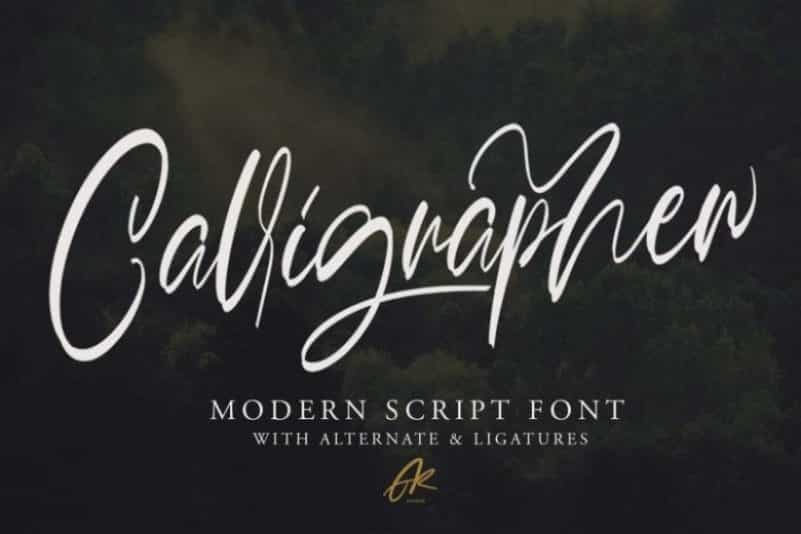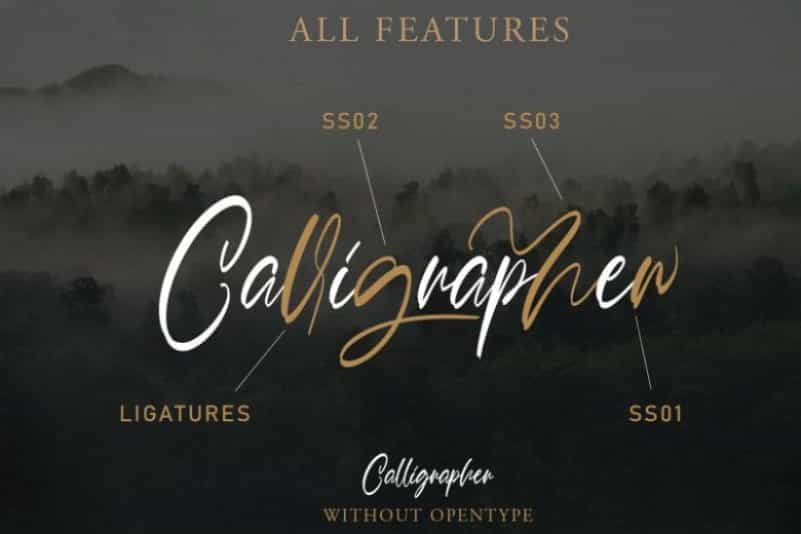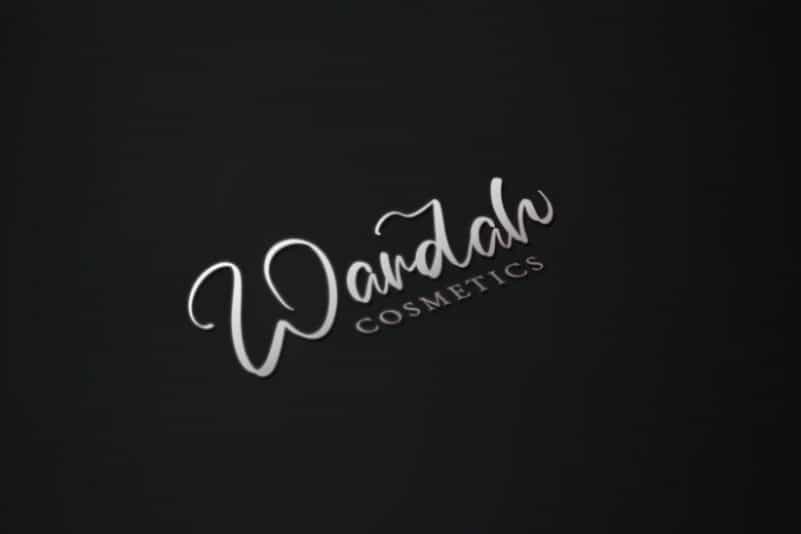
Thanks for having a look at Calligrapher Font! A very entertaining yet sophisticated script font with so much of energy that you can instantly make beautiful hand-written letters. The extra bouncy curves & loops make it to be of more significance.